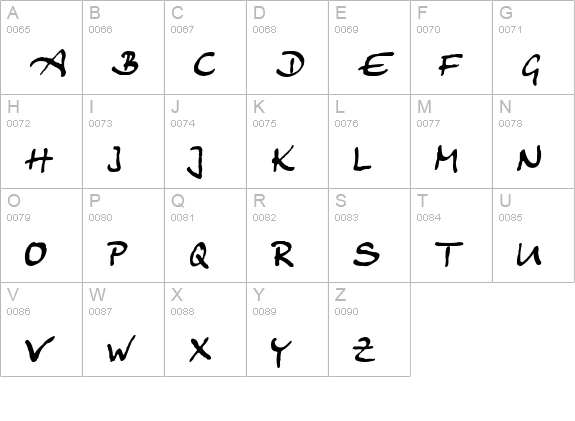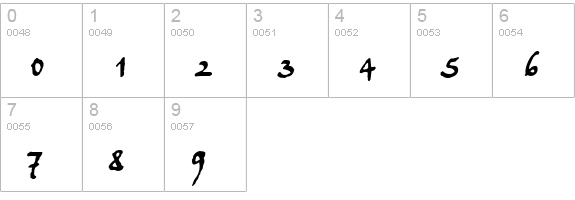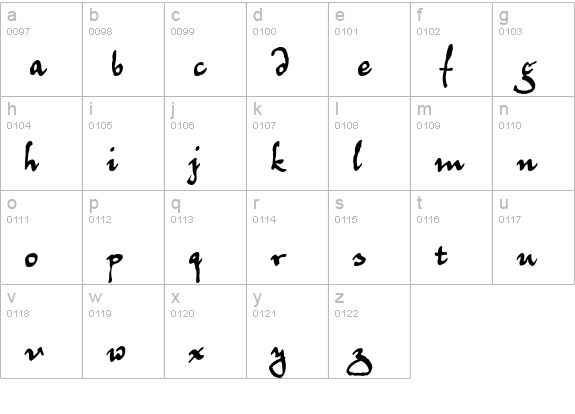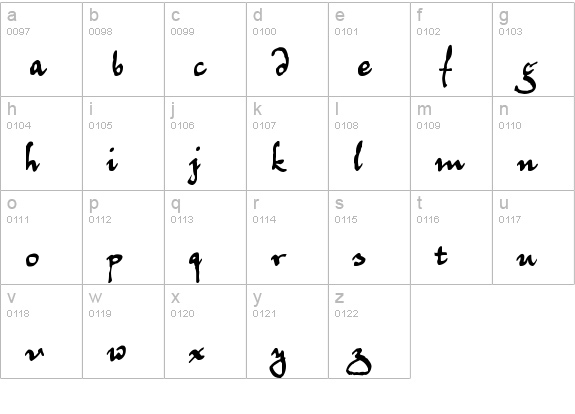
Juergen Font Details
Juergen font is a modern and stylish typeface that exudes elegance and sophistication. With its sleek lines and sharp edges, Juergen font is perfect for creating eye-catching designs that demand attention. This versatile font can be used for various design projects, from branding to advertising to editorial design. What sets Juergen font apart is not only its stunning aesthetics but also the fact that it is available for free download at FontsMarket.com. This means that you can easily access this premium-quality font without any cost, making it a valuable addition to your font library. Embrace the creativity and versatility of Juergen font in your next project and make a lasting impression with its bold and modern style.